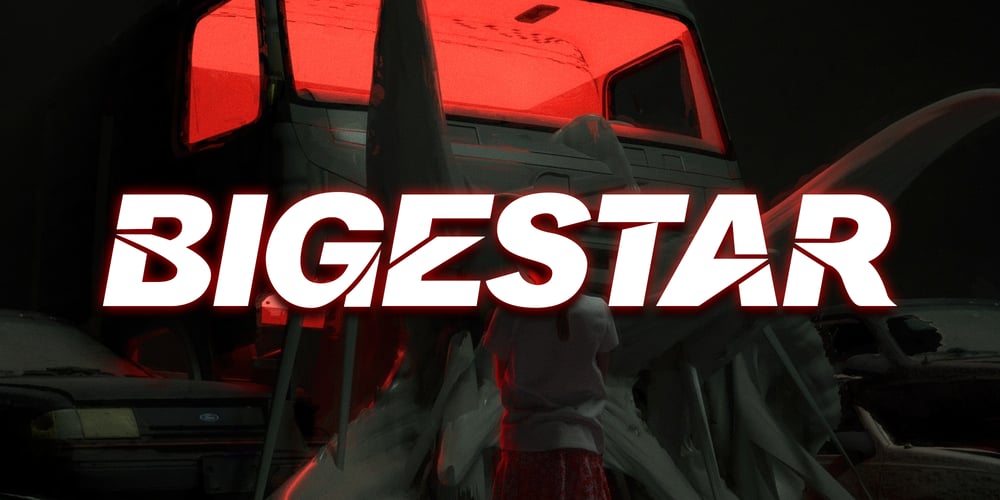
Bigestar Font Family was designed by Muhammad Afif Ersya and published by Mevstory Studio. Bigestar contains 1 styles and family package options. Bigestar is a sans based font with unique lowercase & uppercase that will make your design looks futuristic and modern. You can use this font for any purpose, especially to make hi-tech logotype. This font is also suitable for science-fiction movie poster. You can mix and match the uppercase and lowercase to make your logo more unique and stand-out. This font also support multi language.